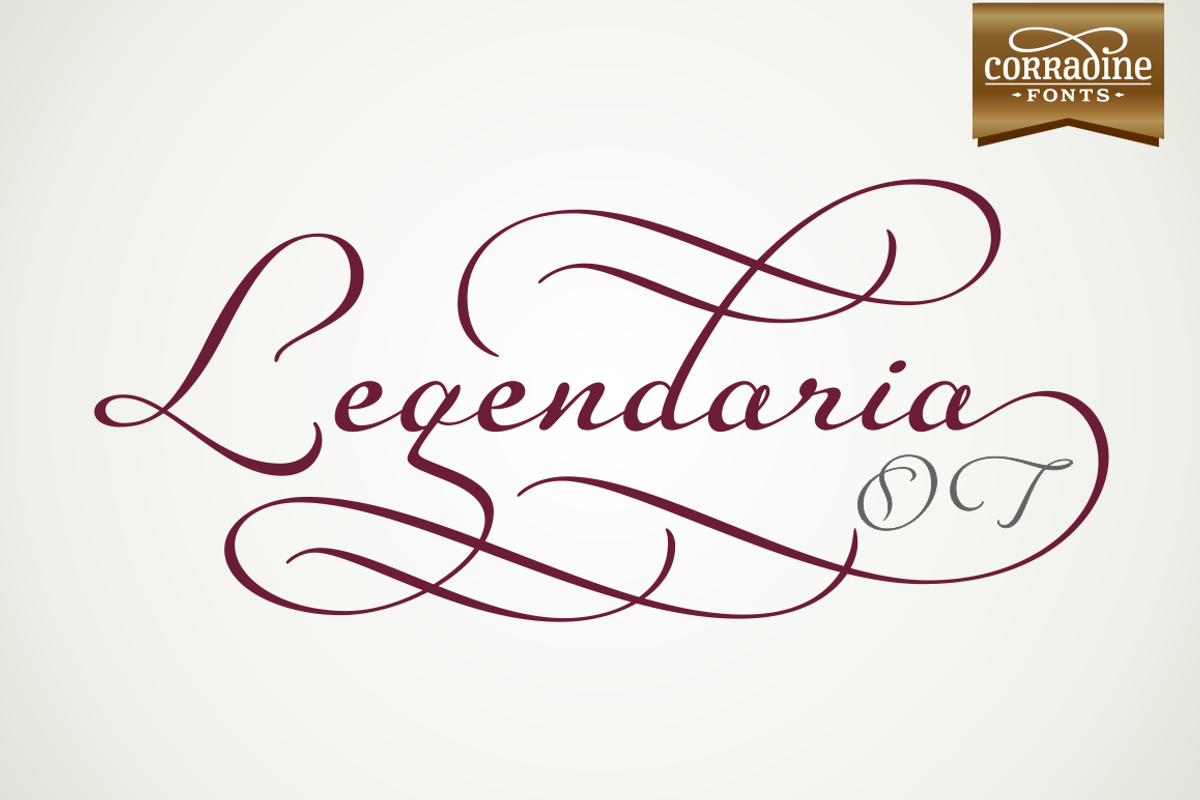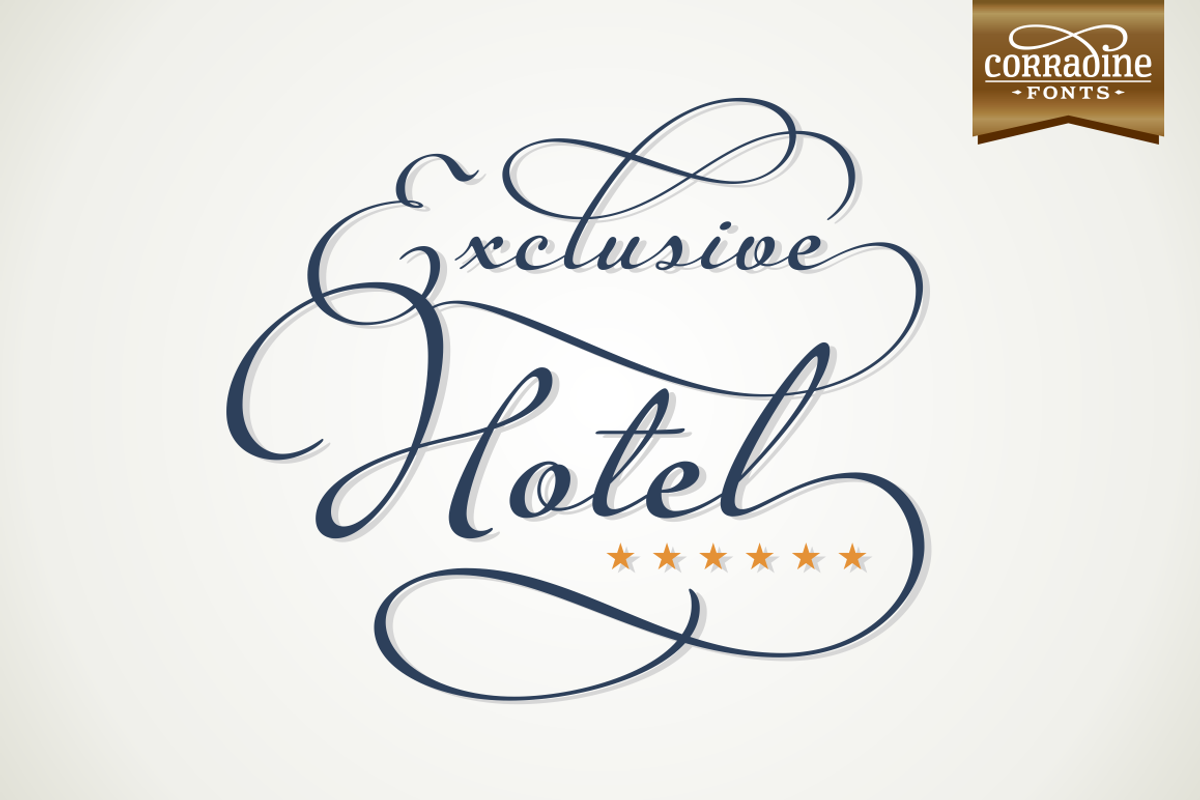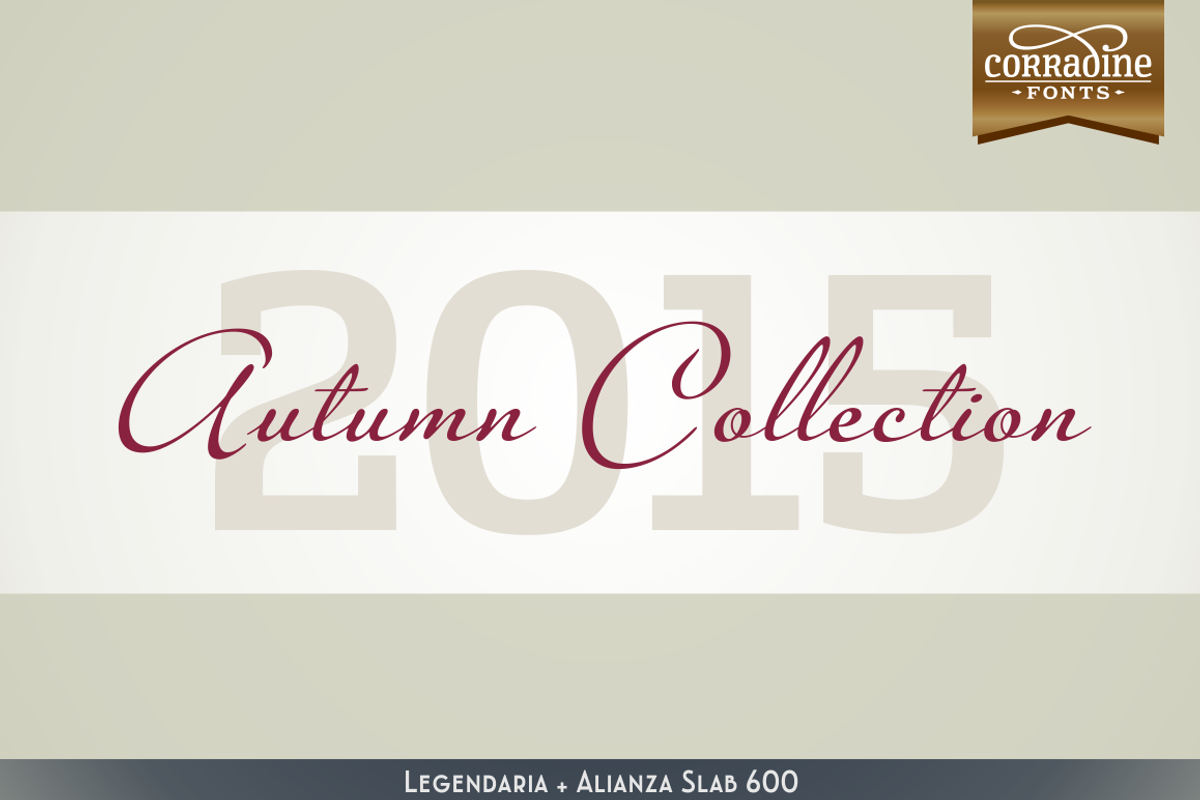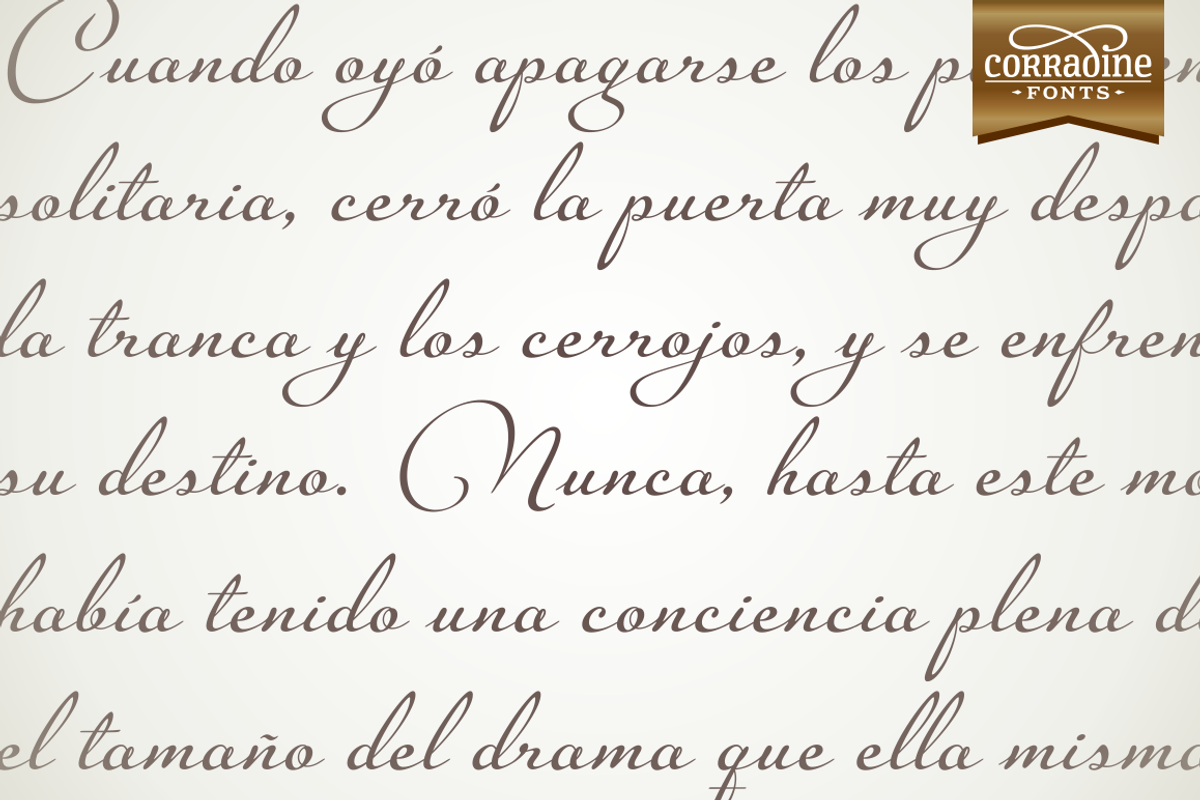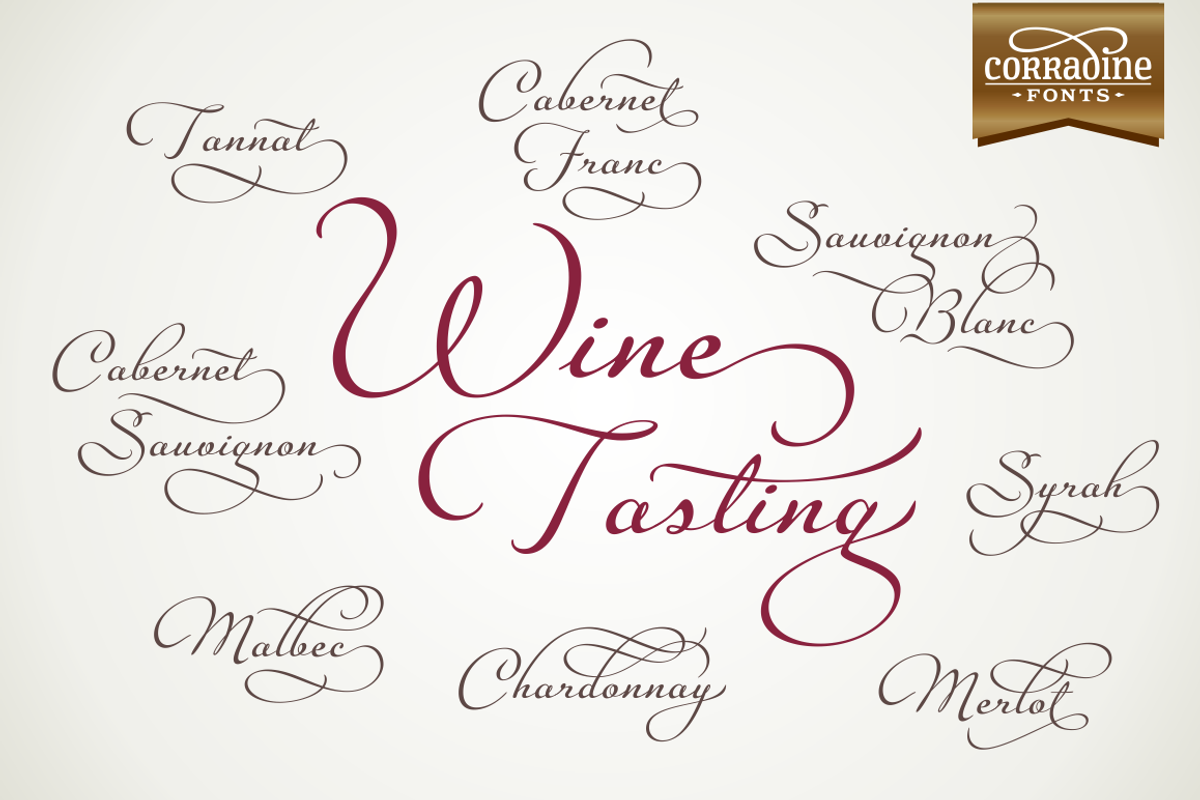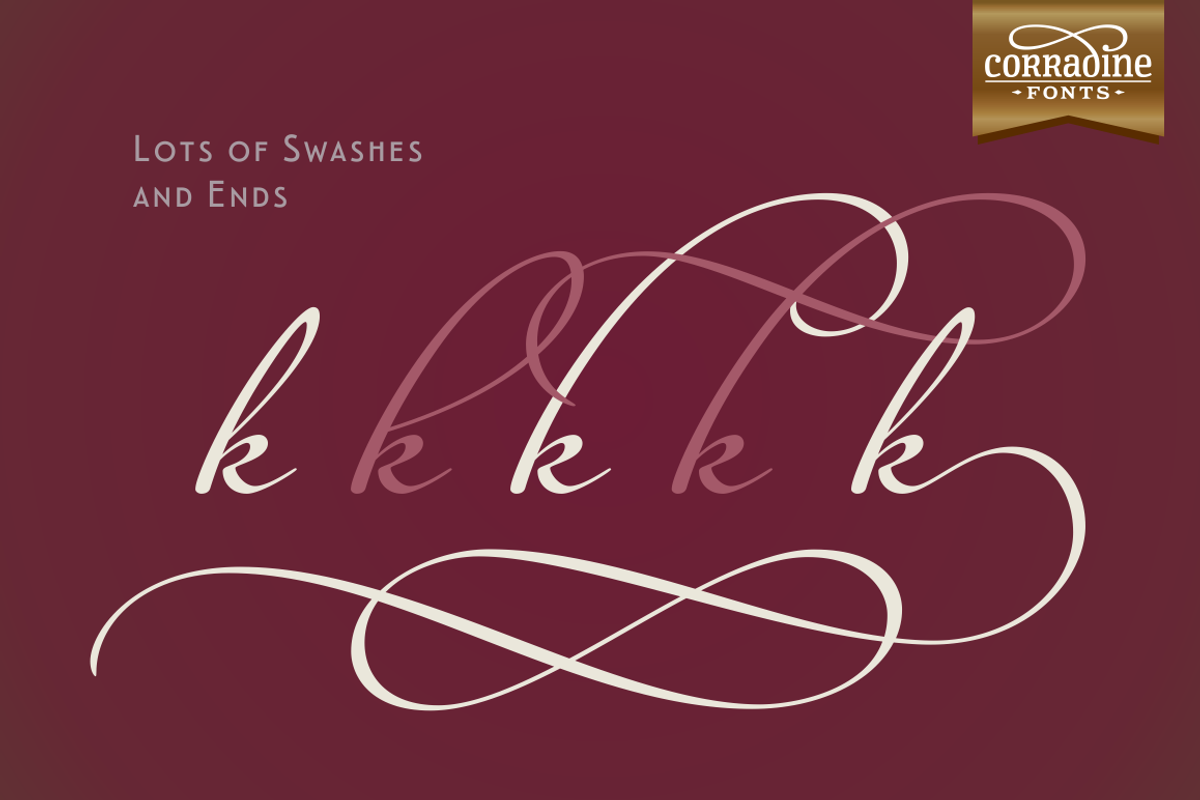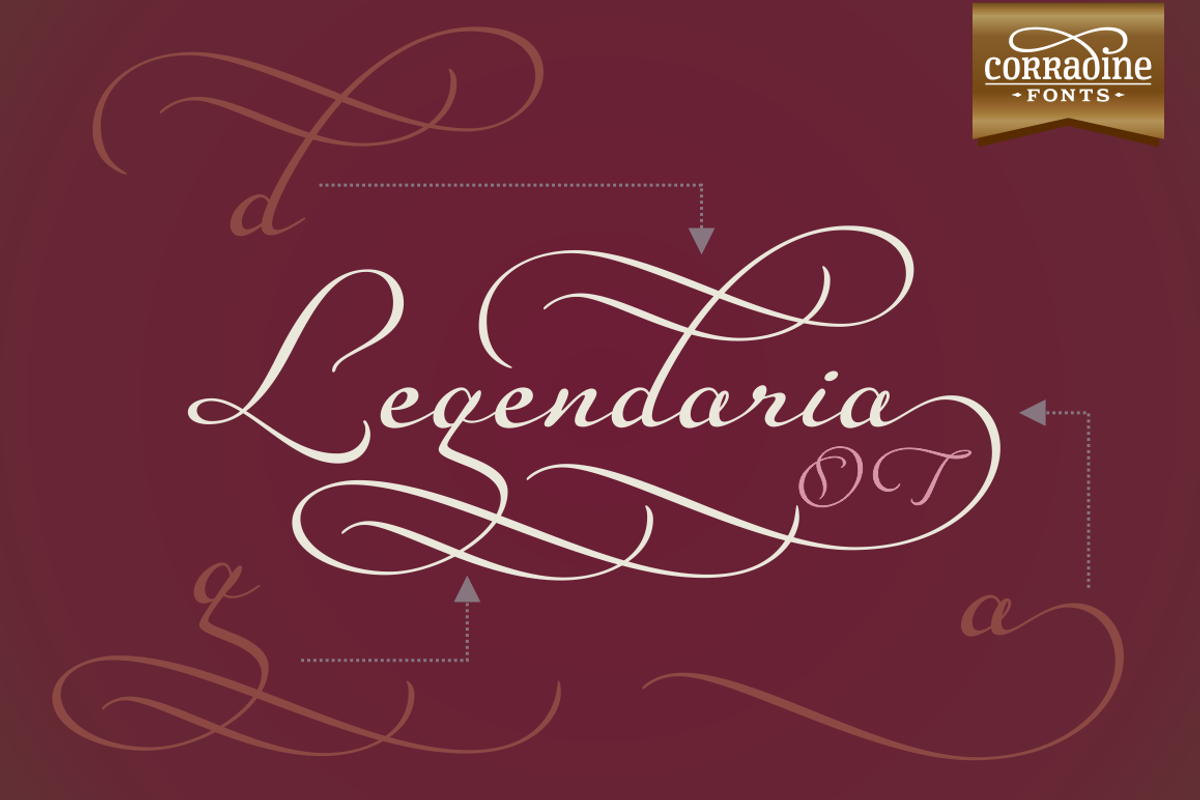
Legendaria OT
Legendaria OT by Corradine Fonts is a font selected for branding, posters, packaging, typography.
- Its more than 1300 ornamented characters make it incredibly versatile.
Why Legendaria OT is worth a look
Legendaria OT by Corradine Fonts fits naturally into Branding, posters, packaging, typography.